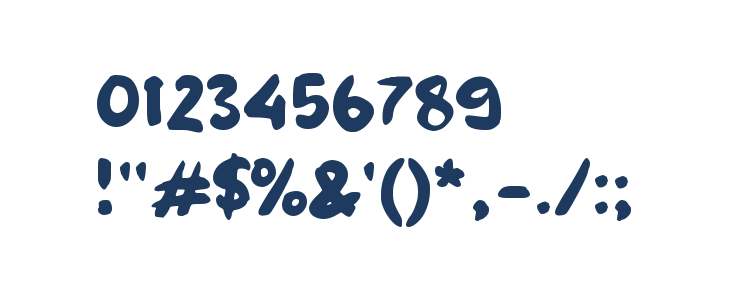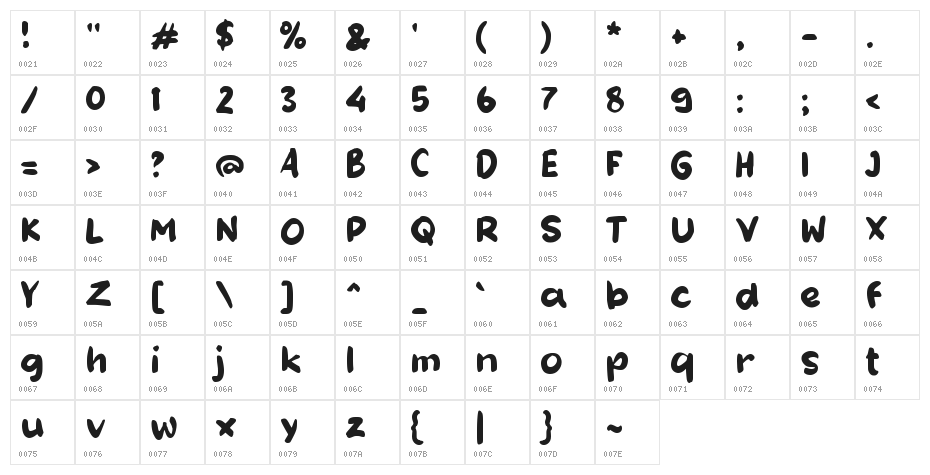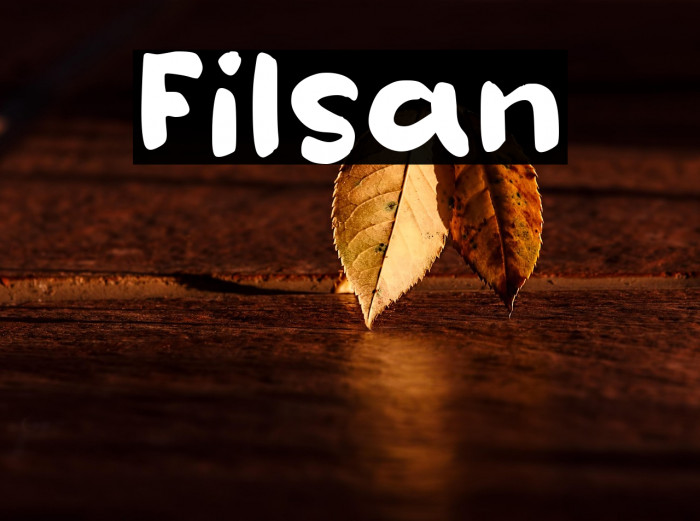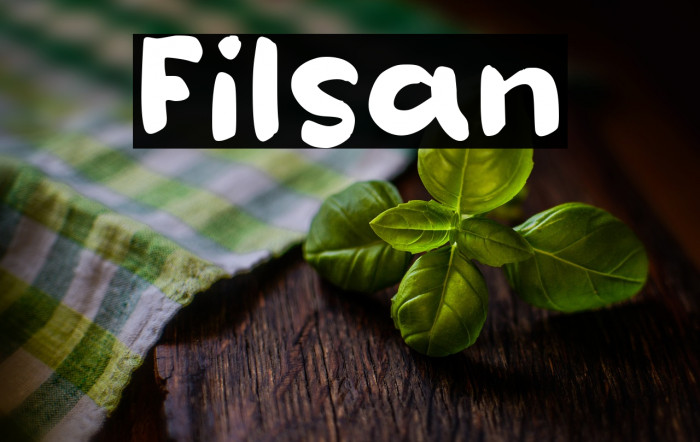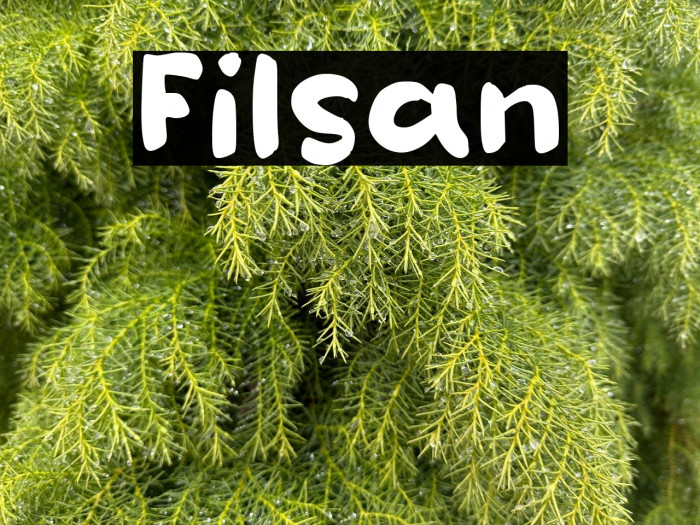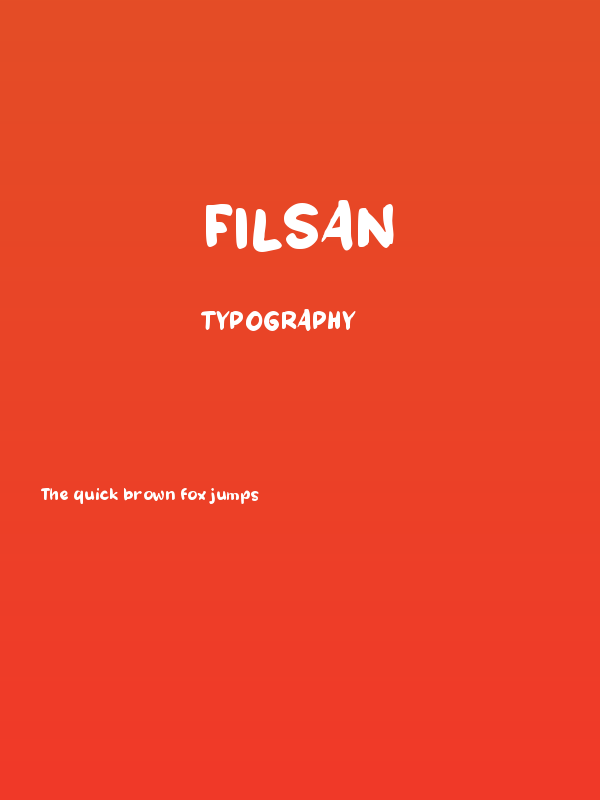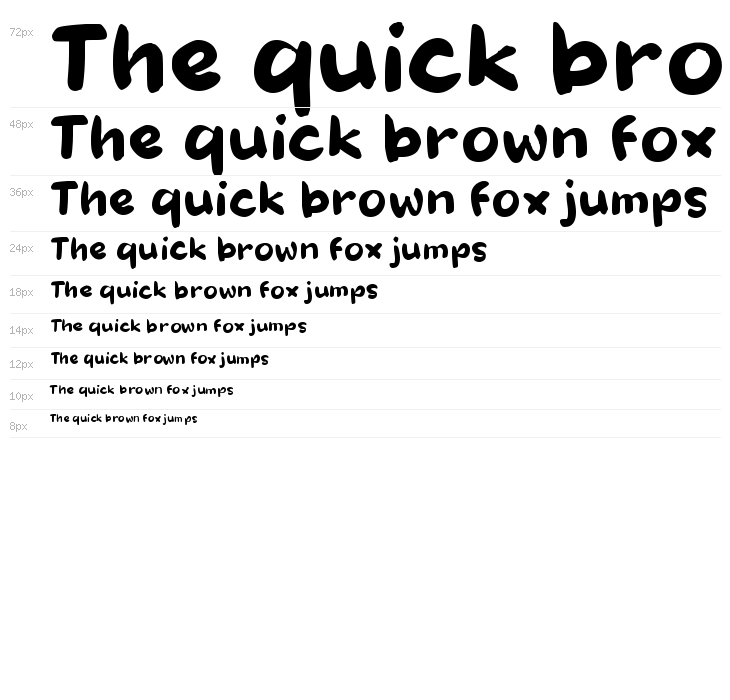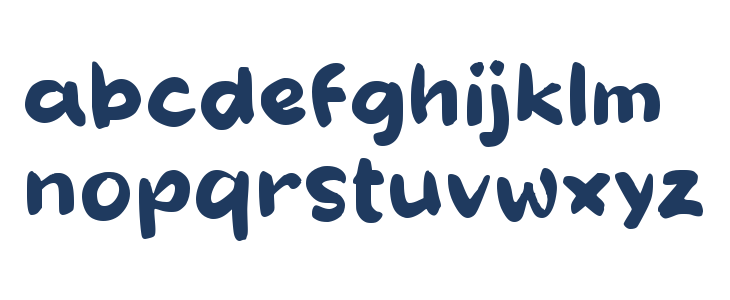
Filsan Font
Filsan Description
This playful and bold font features a hand-drawn aesthetic with rounded edges and a slightly irregular form, giving it a whimsical and friendly appearance. The characters are thick and substantial, making them highly legible and suitable for attention-grabbing designs. The uppercase and lowercase letters maintain a consistent style, with the lowercase letters slightly smaller in size but equally bold. The numbers and special characters follow the same design principles, ensuring uniformity across all glyphs. This font's unique style makes it ideal for projects that require a fun and informal touch.